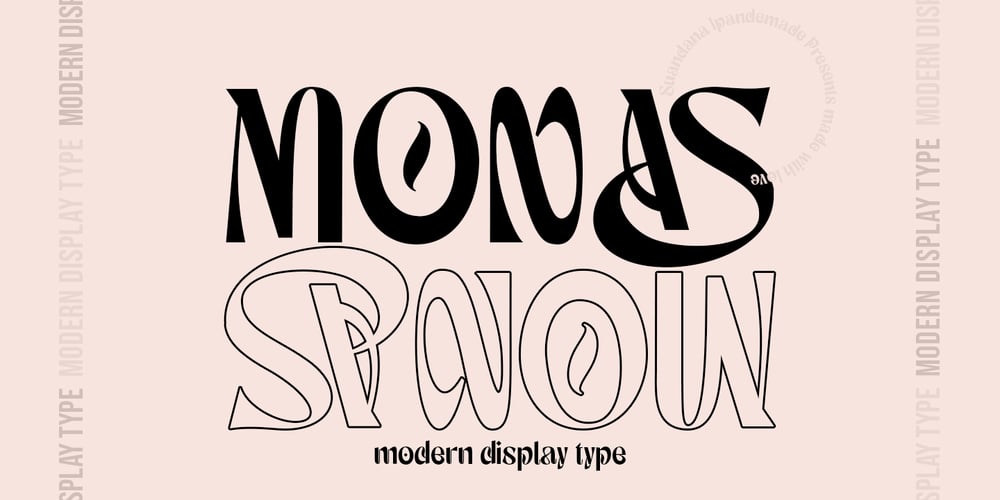
Monas
Monas font
Monas Font Family was designed by Pande Made and published by TypeClassHeroes. Monas contains 1 styles and family package options. Introducing Monas is a Modern Modern Display Font, access your OpenType features to access the large selection of alternate letters and ligatures. Use this font for any branding, product packaging, invitation, quotes, t-shirt, label, poster, logo etc.Feature Uppercase & Lowercase Number & Symbol International Glyphs Multilingual support Alternative Ligature Feel free to drop us a message any timeHope you enjoy it.